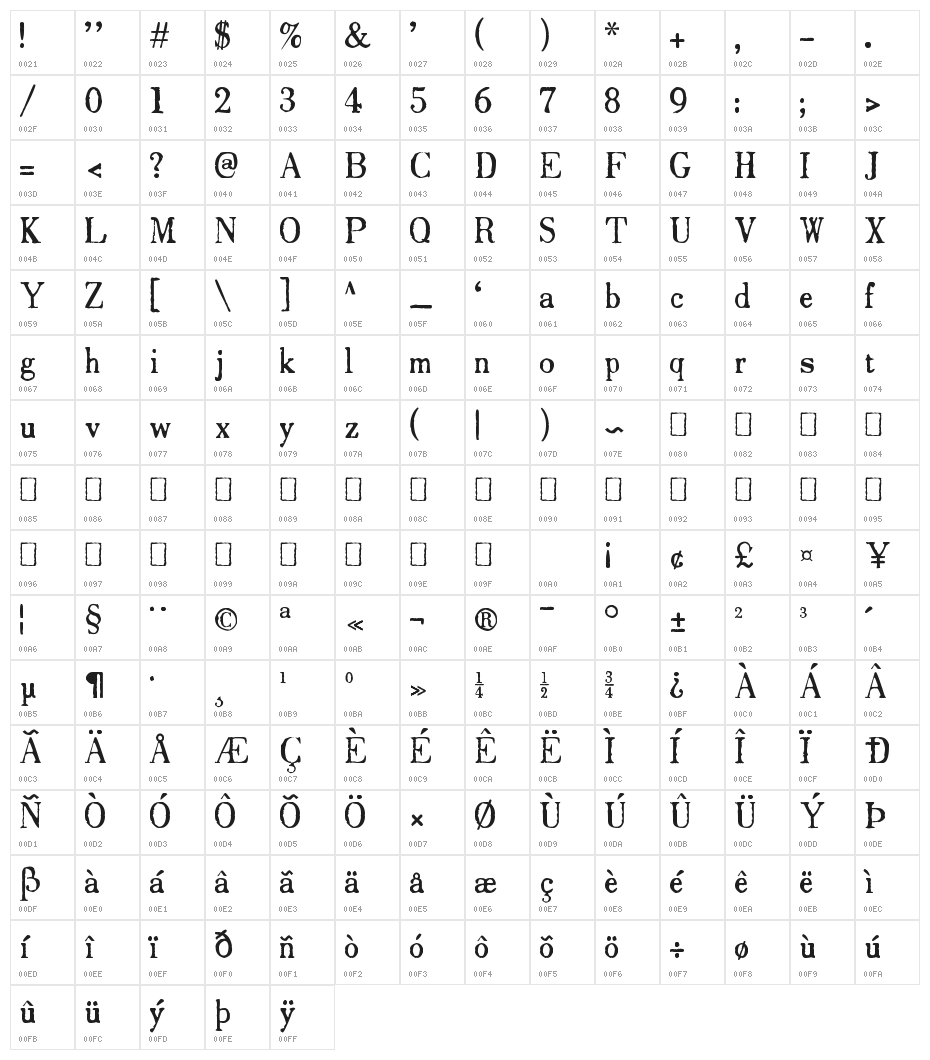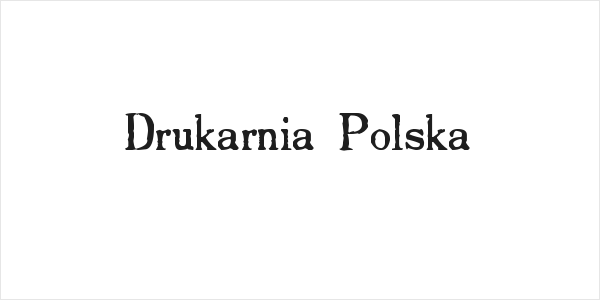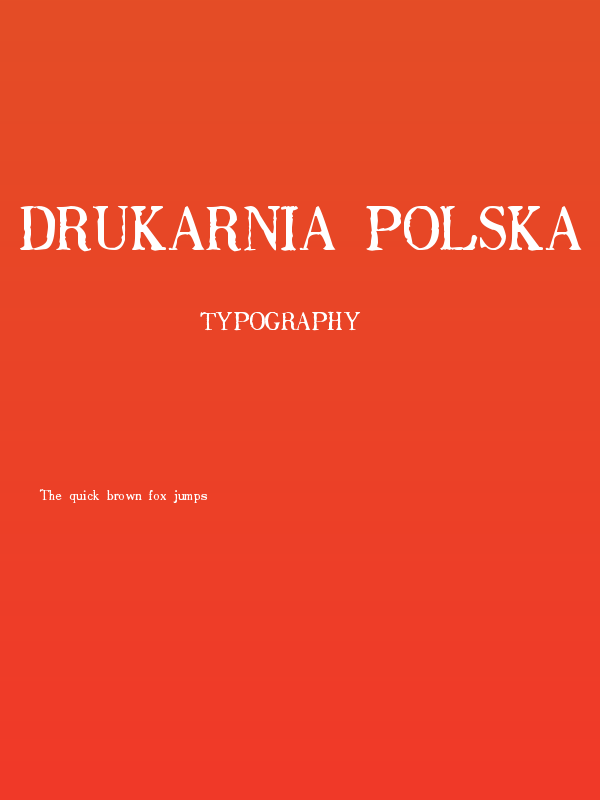
Drukarnia Polska Font
Drukarnia Polska Description
This font exhibits a vintage and distressed aesthetic, characterized by its rough, uneven edges and a hand-crafted appearance. The uppercase and lowercase letters maintain a consistent style, with bold strokes and a slightly irregular baseline that adds to its rustic charm. The numerals and special characters follow the same design principles, ensuring a cohesive look across all glyphs. The font's texture suggests a historical or antique feel, reminiscent of old printing techniques. Its unique style makes it stand out, providing a sense of authenticity and character.
| Proposed Projects | Ideal for projects that require a historical or rustic touch, such as vintage posters, book covers, branding for artisanal products, or themed event invitations. |